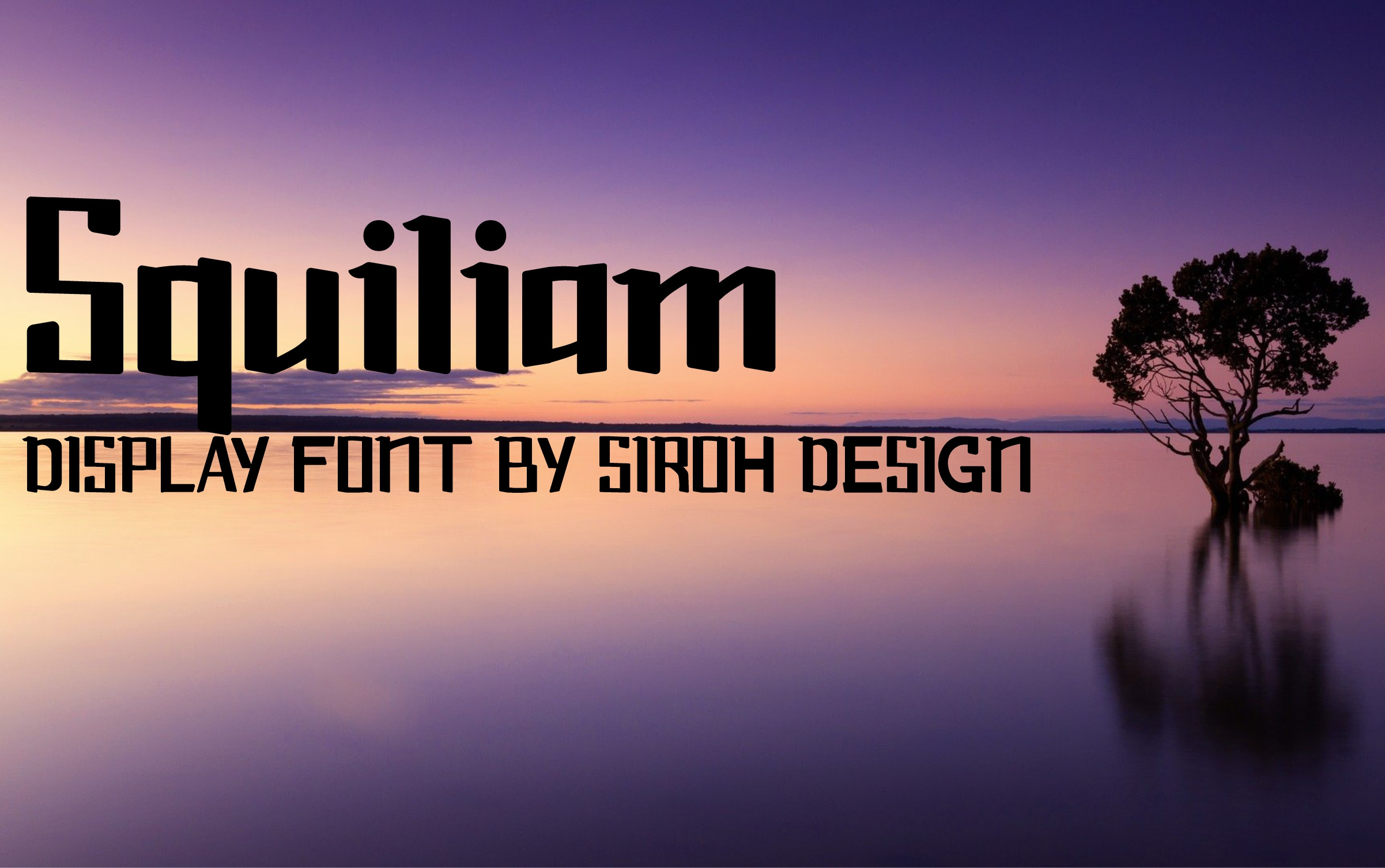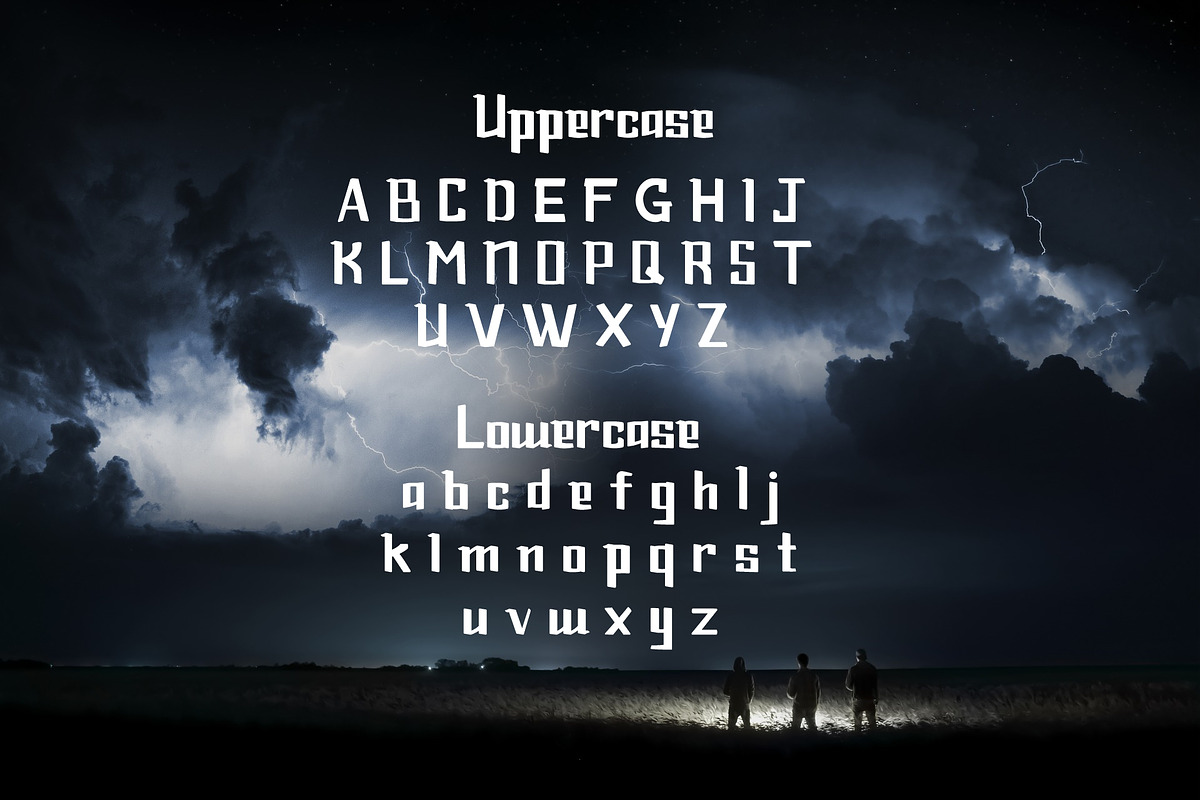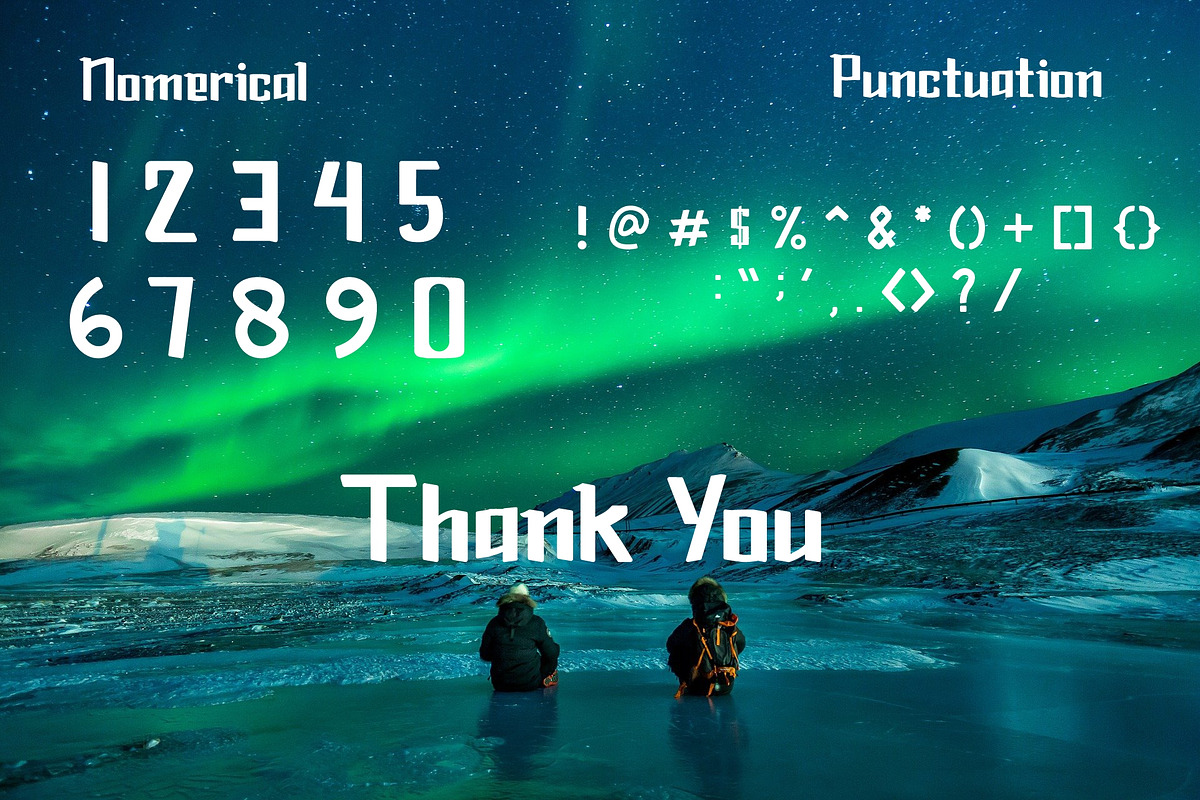
Squiliam Font
Squiliam is a trendy and cool display font. It is imposing and features uniquely shaped letters, and as a result, it will easily match a wide range of creations that require a distinct touch.